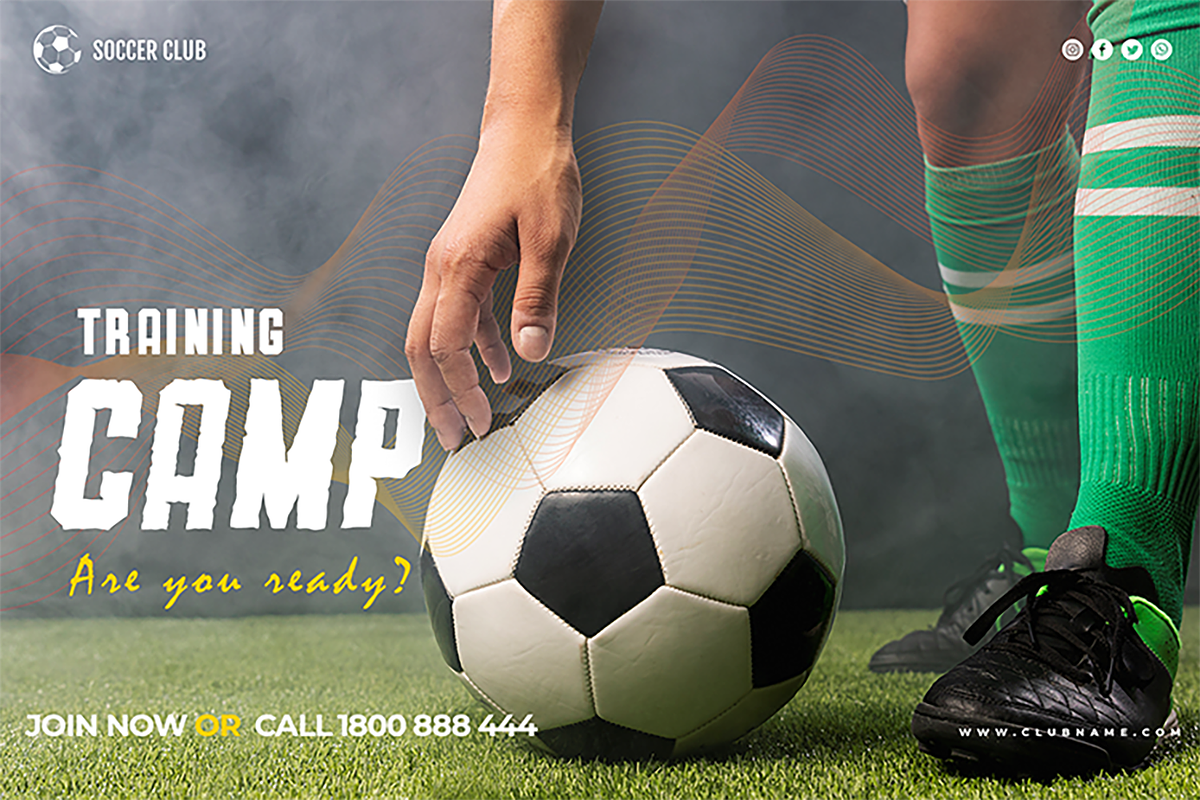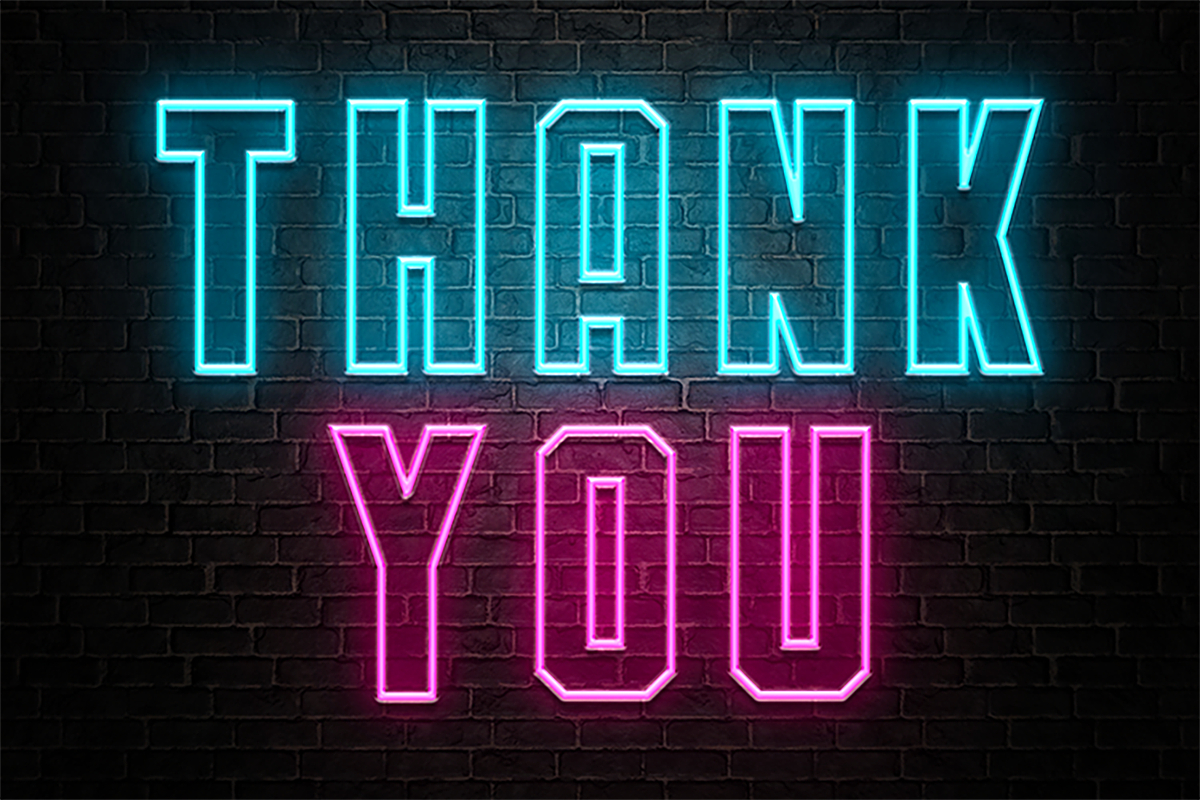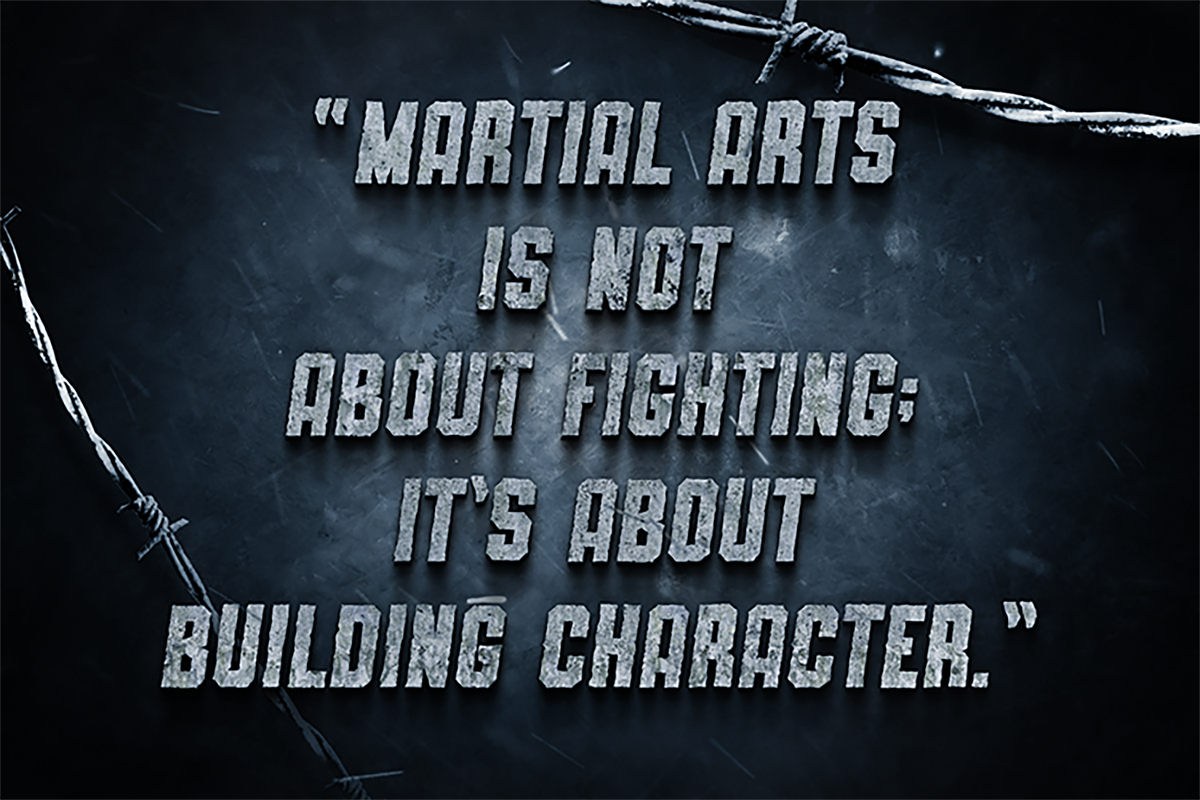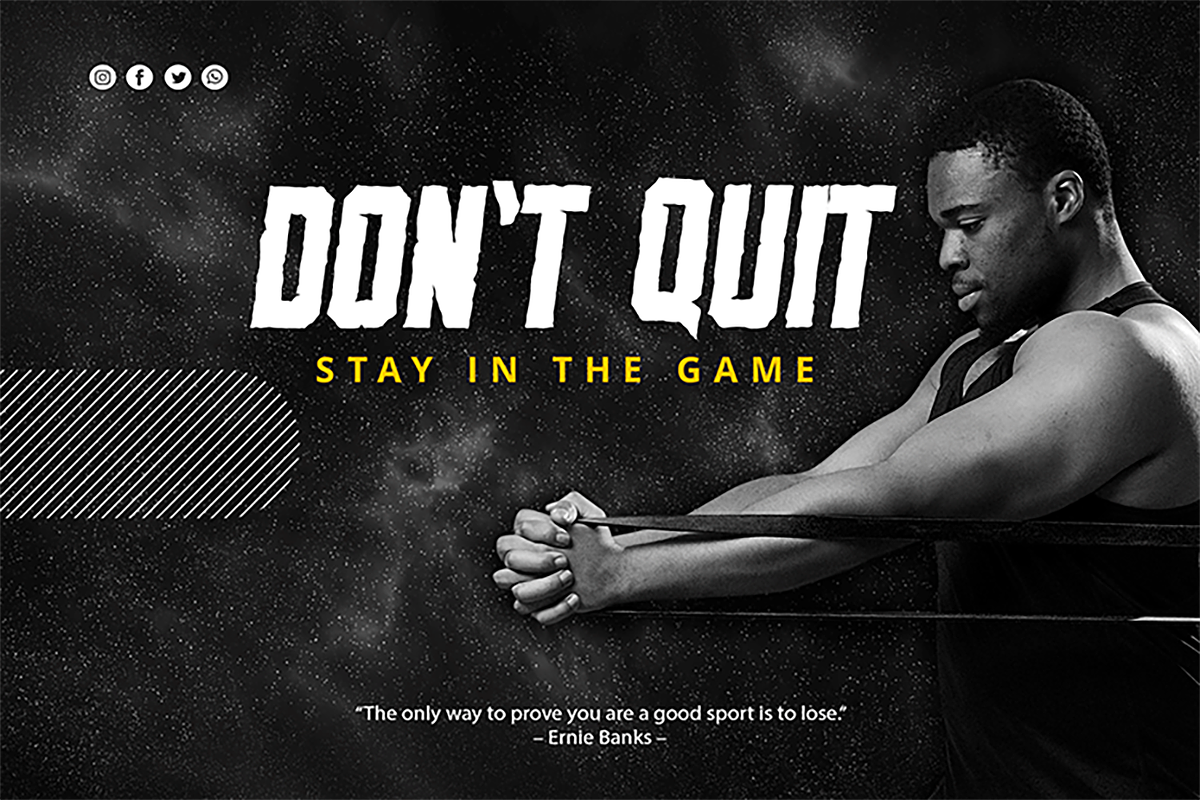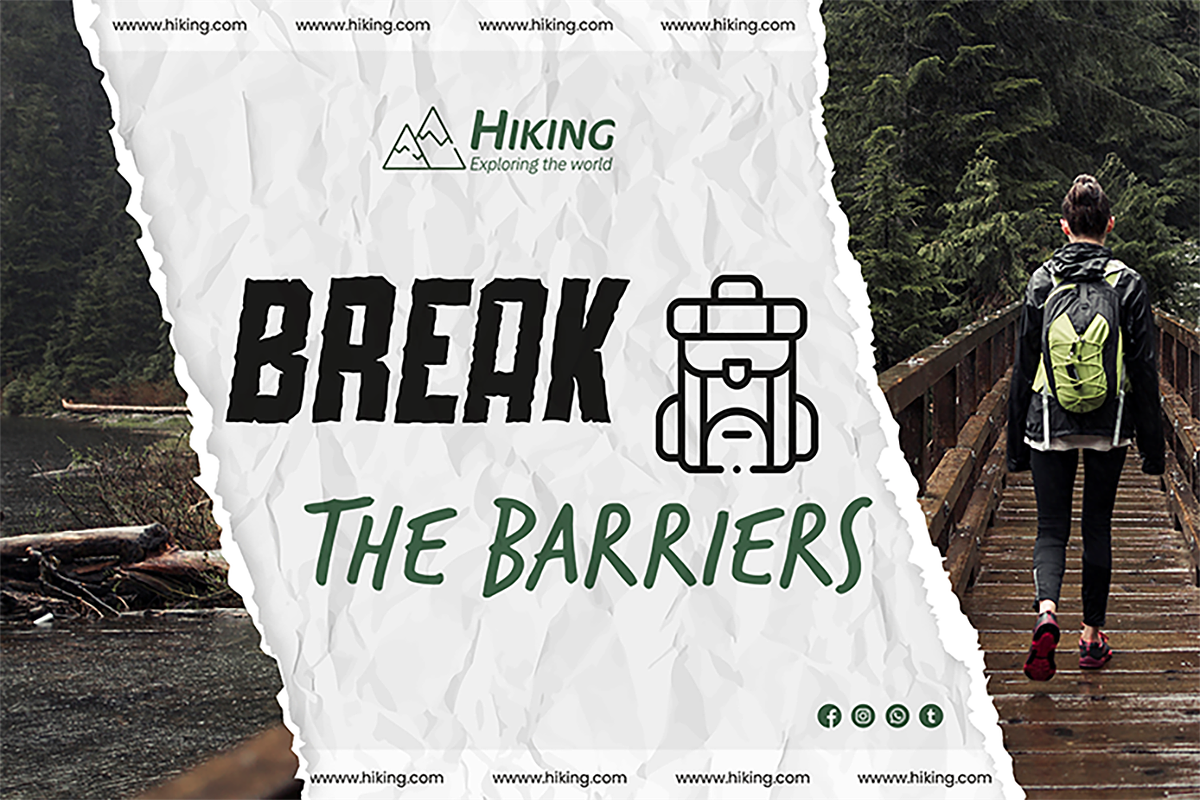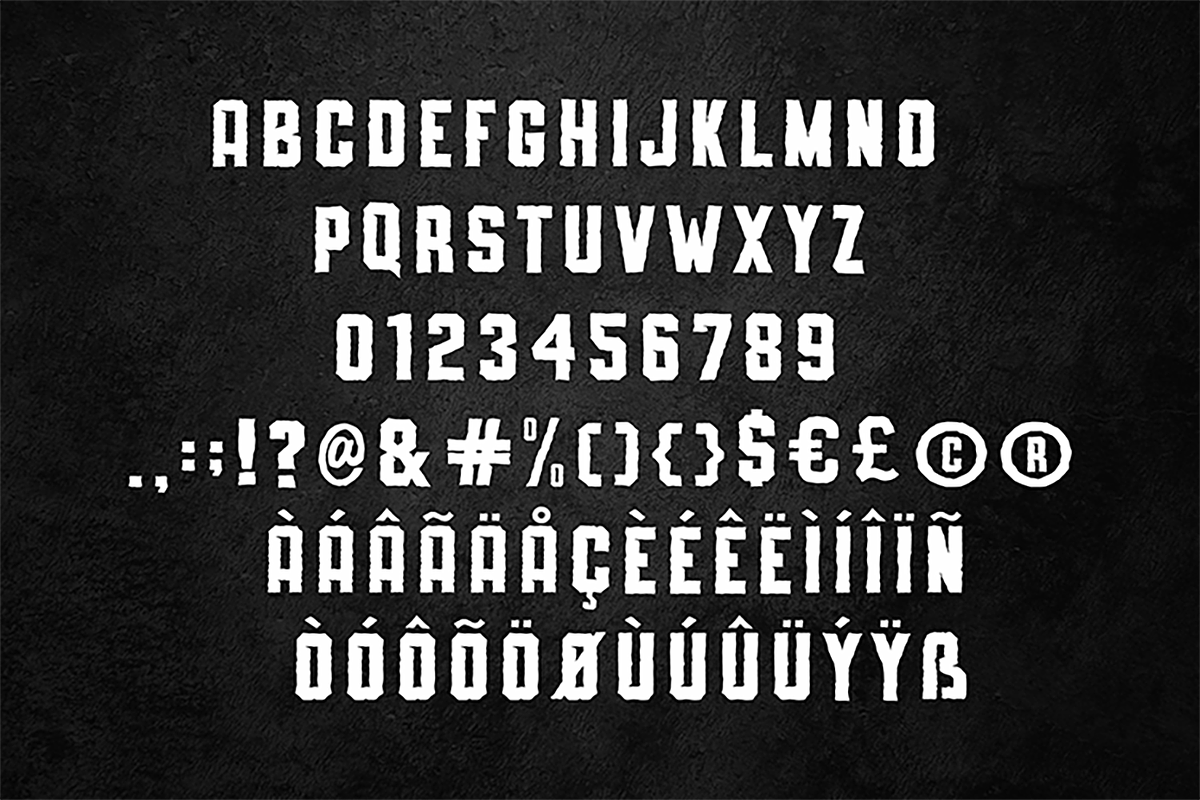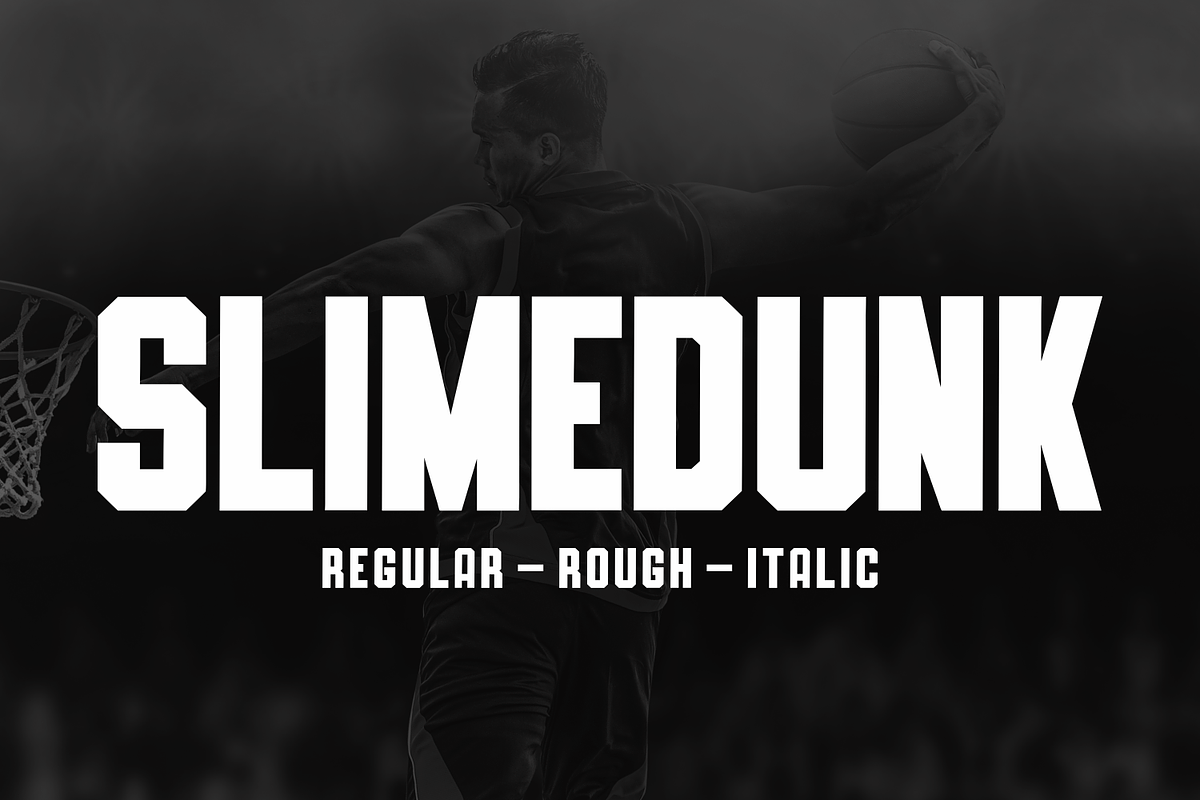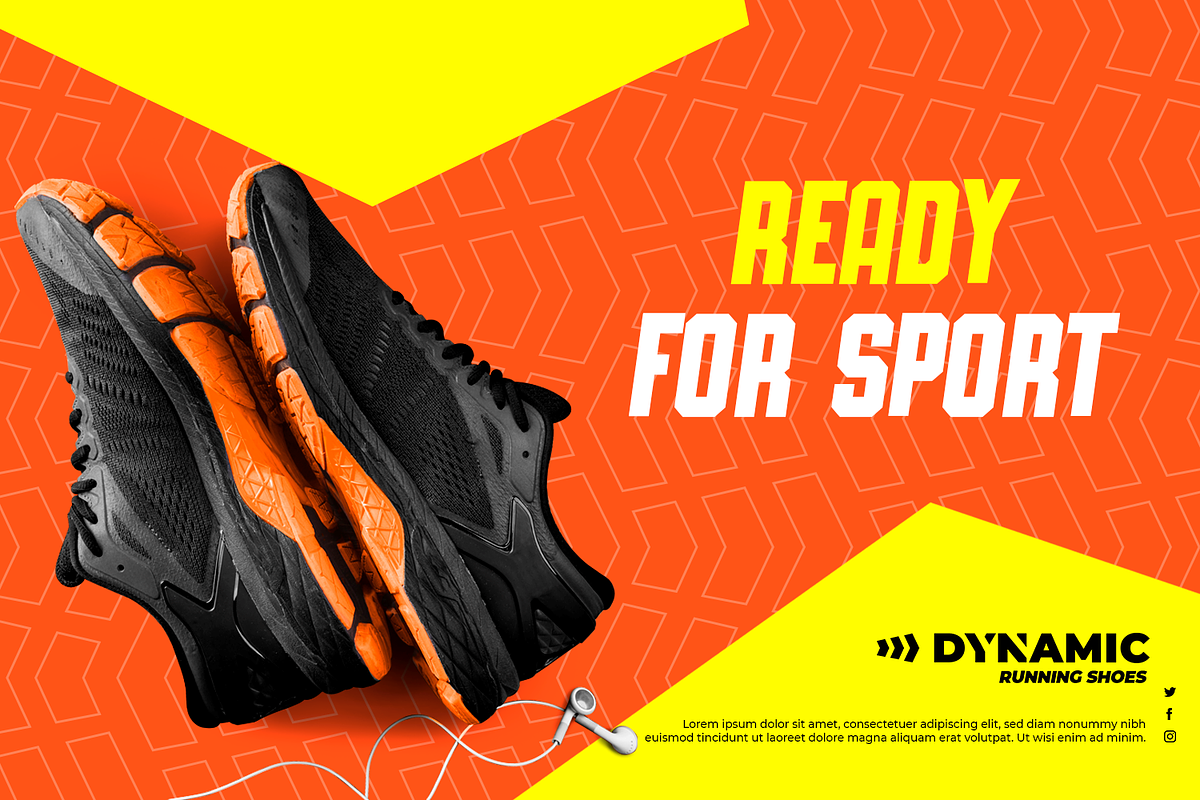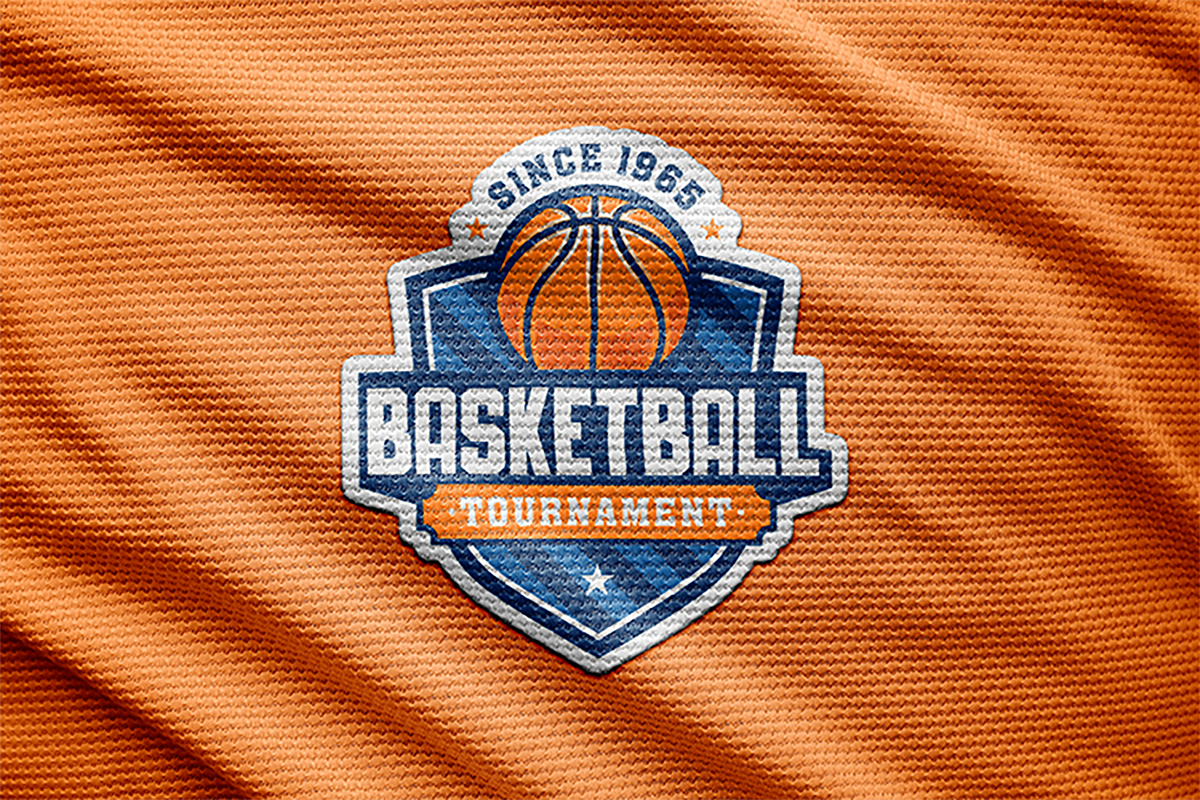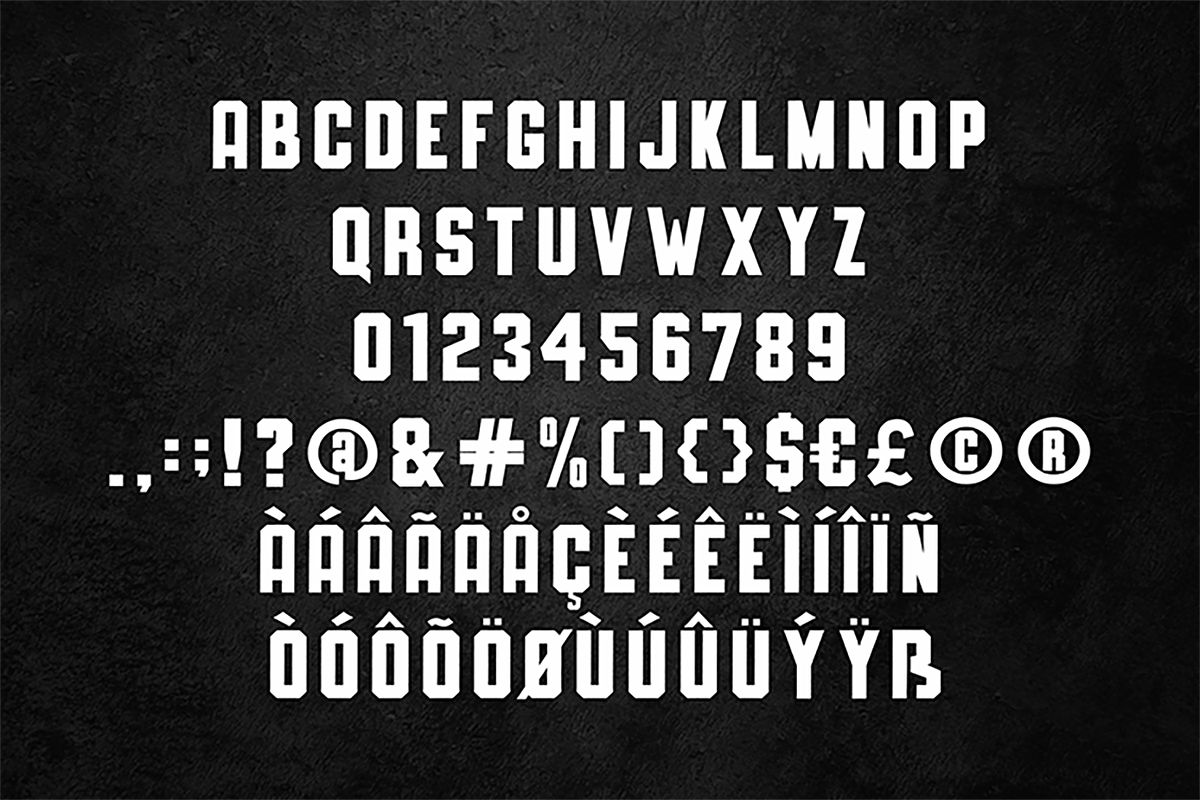
SLIMEDUNK
SLIMEDUNK is a sans serif display font, which contains 4 styles and It features a unique and modern sans serif.
This font would be perfect for E-sport Logo, film posters, games, sports and any project. It’s also perfect for that delicate look that you want in your invitations, poster